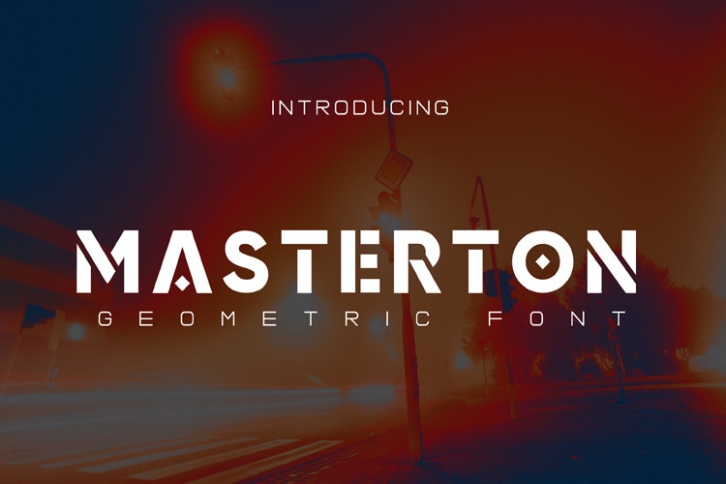
Masterton is a cool, bold and geometrically shaped display font. This font is ideal for writing web designs, business cards, or pretty much anything else that requires a unique touch.